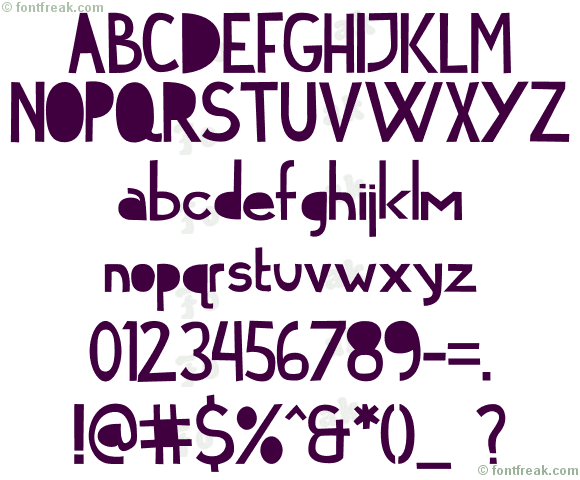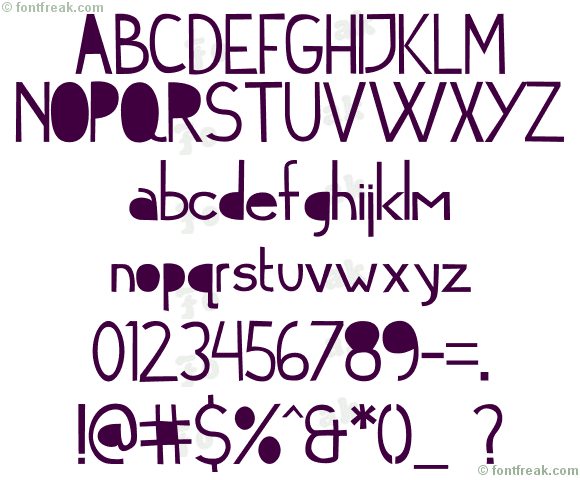
Cymo
Cymo Bold
Cymo, designed by Luedecke Design Font Co., is a bold display typeface that exudes a modern yet playful vibe. As a sans-serif font, it features clean lines and a geometric structure, making it versatile for various design projects. The stroke weight of Cymo is consistent, offering a solid appearance that captures attention without overwhelming the viewer. The character spacing is well-balanced, allowing for easy readability while maintaining an engaging aesthetic. This font's unique design elements include rounded terminals and a slightly condensed form, contributing to its contemporary character.
Cymo is particularly well-suited for a variety of applications. Its boldness makes it an excellent choice for movie posters where impactful typography is essential. Additionally, the font can elevate wedding invitations, adding a touch of modern elegance to formal events. Restaurant menus can benefit from Cymo’s striking appearance, drawing diners' eyes to enticing dish names. Moreover, content creators can utilize this font for social media graphics, ensuring their posts stand out in a crowded feed. Small business owners will find Cymo to be an appealing option for branding materials, creating a memorable identity that resonates with customers.